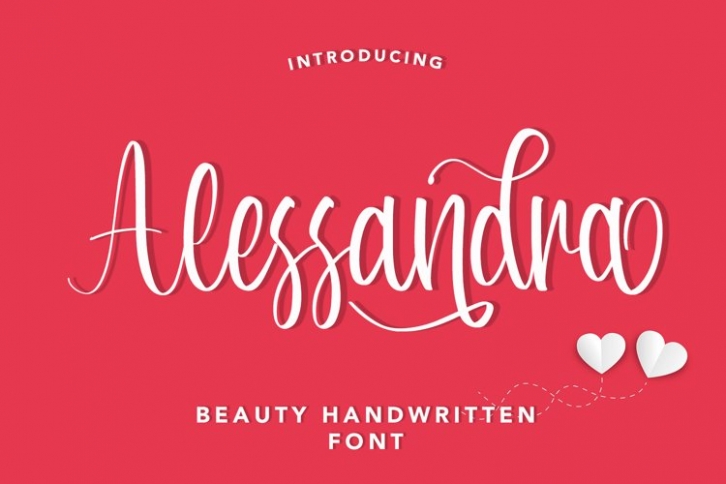
Alessandra is a beautiful font that was designed by plusstore. It's a great choice for designers and creatives who need such a font. It was released on June 12, 2021 and the file size is 12.34 MB. Alessandra may give a more youthful, expressive and casual look to your project. It is a very beautiful, refined, elegant, and high-quality font.